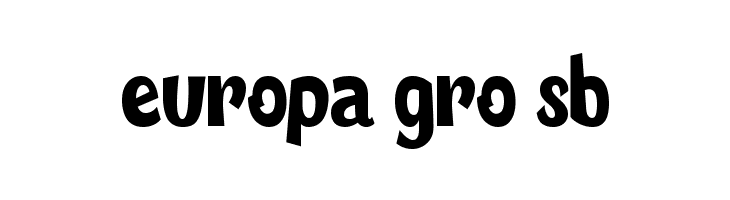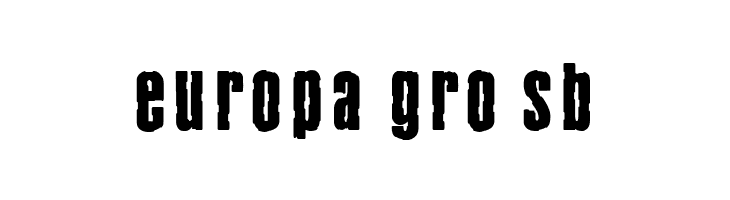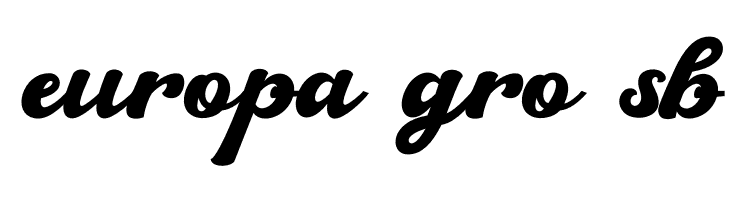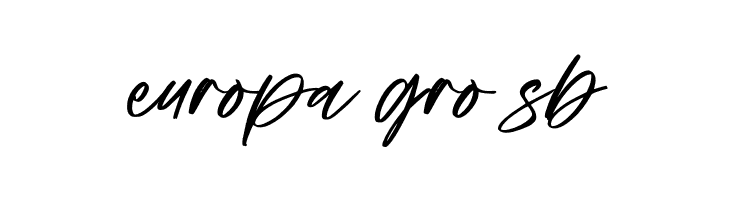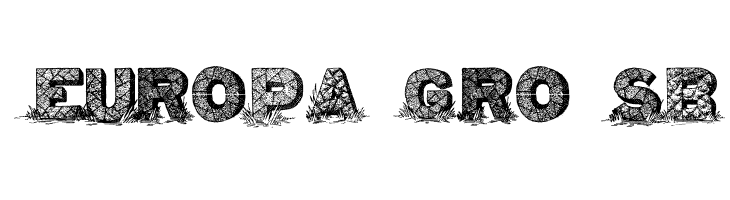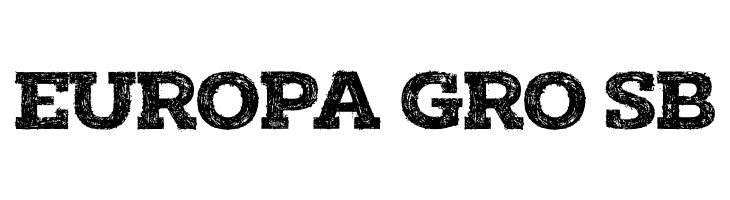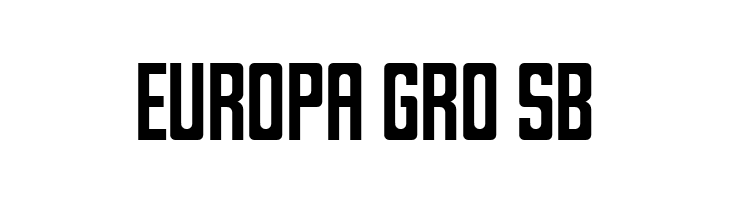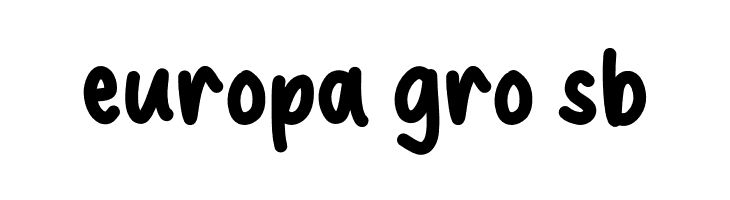
( Fonts by Excellent Ritma Florendia )
A playful and bold font with exaggerated curves and a lively personality.
( Fonts by Aldy Sidik )
A bold, distressed font with a vintage industrial style.
( Fonts by Haksen Letters )
A bold, cursive font with interconnected characters and elegant curves.
( Fonts by Damarletter )
A dynamic, cursive script font with a fluid, handwritten style.
( Fonts by Intellecta Design )
A bold, decorative font with a textured, stone-like appearance.
( Fonts by Eko Bimantara )
A rugged, distressed font with a vintage, handcrafted appearance.
( Fonts by Ahwe Project )
A bold, modern font with tall, condensed characters and consistent stroke width.
A modern, geometric font with a block-like, digital appearance.
( Fonts by Viola Type )
A bold, handwritten font with a playful and casual style.
( Fonts by Pen Culture )
A delicate, flowing script font with a handwritten, elegant style.